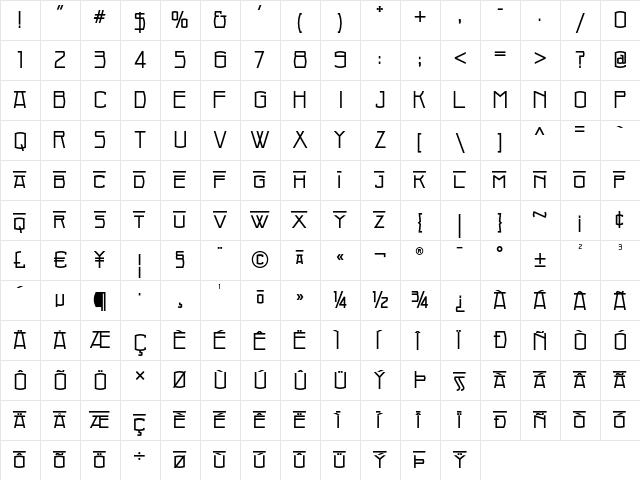
Haarlem Nights NF Regular
Design Context for Haarlem Nights NF Typeface
Haarlem Nights NF is a composed and adaptable typeface that performs quietly and consistently across a wide range of design contexts.